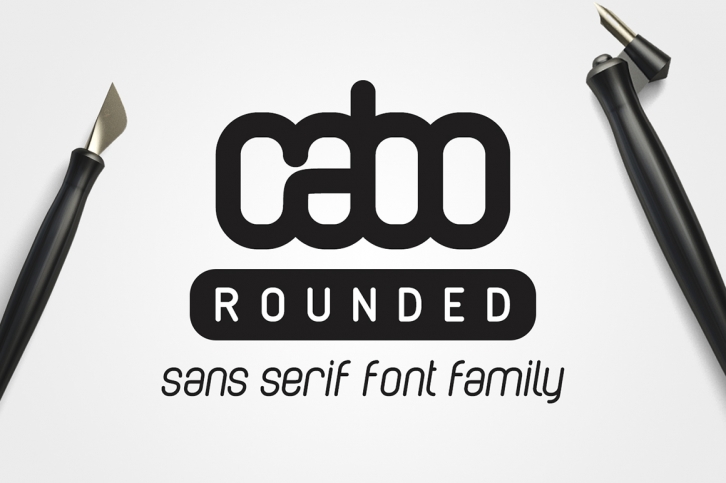
Cabo Rounded Family is a gorgeous font that was realeased on November 3, 2016. The font can be used in many style contexts and design environments. Perfect for invitations, magazines, websites, logos, and more! It was designed by Design a Lot and the file size is 17.40 MB. Thanks for checking out this font!